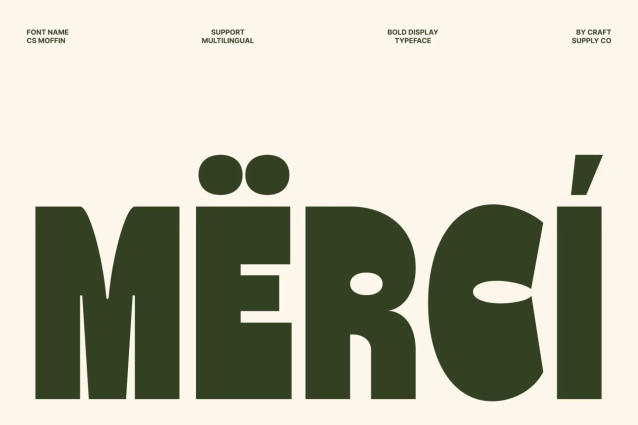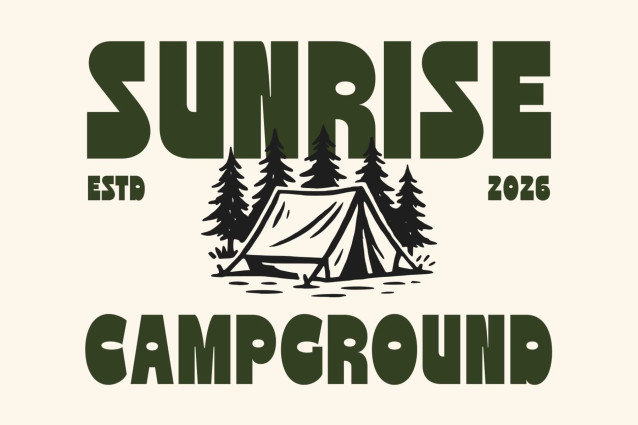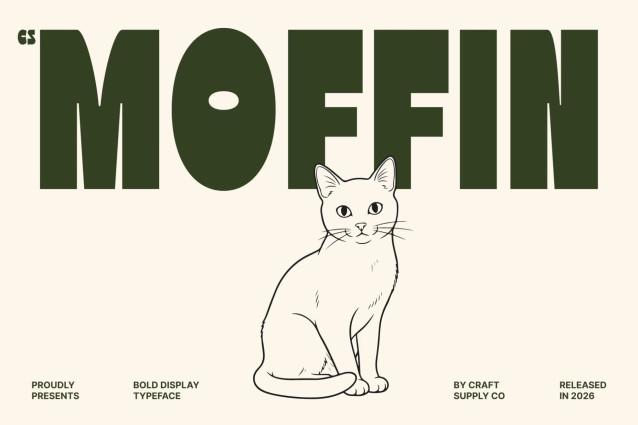
CS Moffin – Bold Display Font
CS Moffin – Bold Display Font: Where Playful Personality Meets Bold Visual Impact
Bold Display Font with Friendly Character
This is a bold display font characterized by heavy letterforms and a playful personality that instantly captures attention. Its chunky proportions and rounded, approachable forms create typography that feels energetic, inviting, and full of charm. The bold construction ensures maximum visibility while maintaining excellent readability across a variety of display sizes.
Fun Design with Strong Visual Presence
This font combines expressive shapes with a friendly aesthetic that adds warmth and excitement to any composition. Its lively character brings a sense of joy and creativity, making it an ideal choice for brands and designs that want to communicate positivity and approachability.